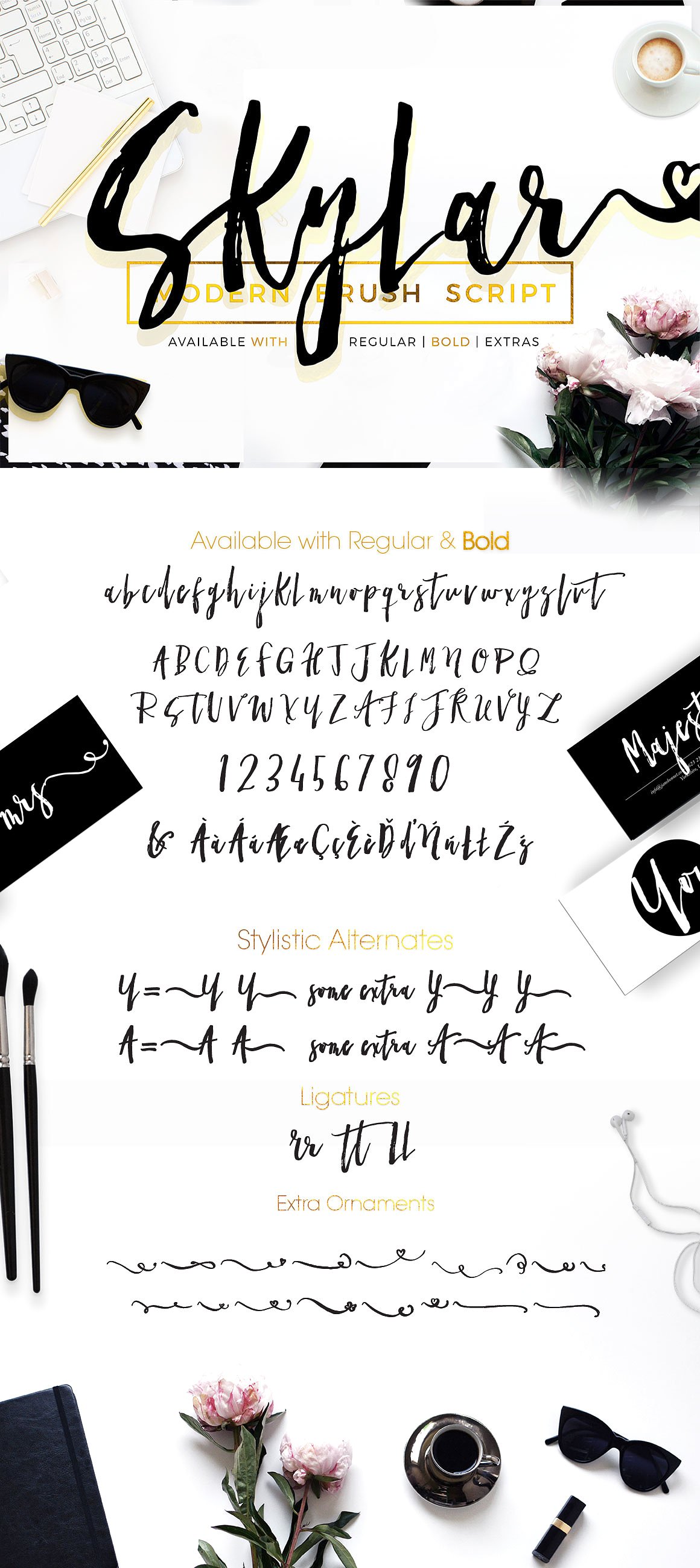
Skylar Script
Hello Creative! Let me introduce, my April’s font, Skylar. Fresh and Modern Dry Brush Script. Available with bold, regular, swashes and extra ornaments, ready to beautify our modern and up to date design. Let’s shine with Skylar!